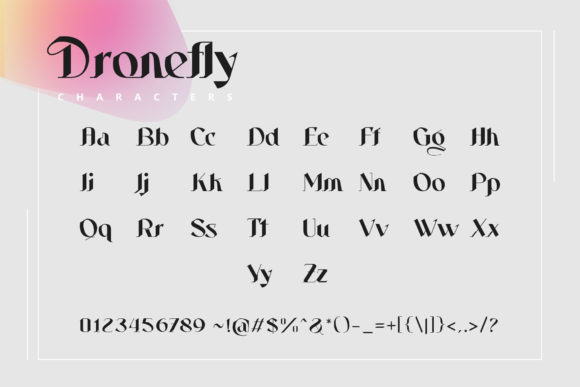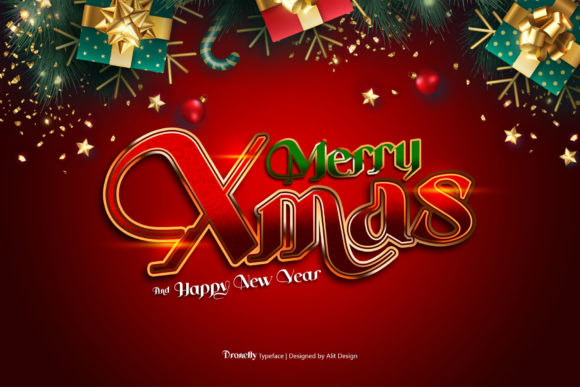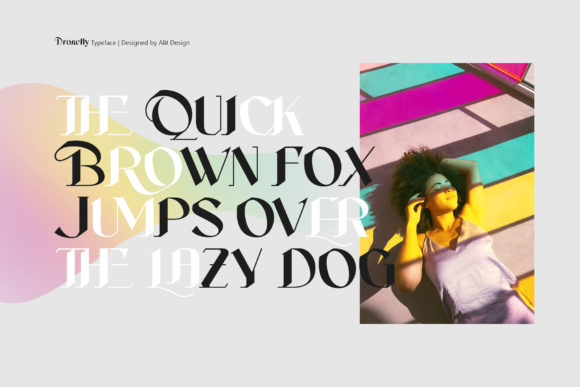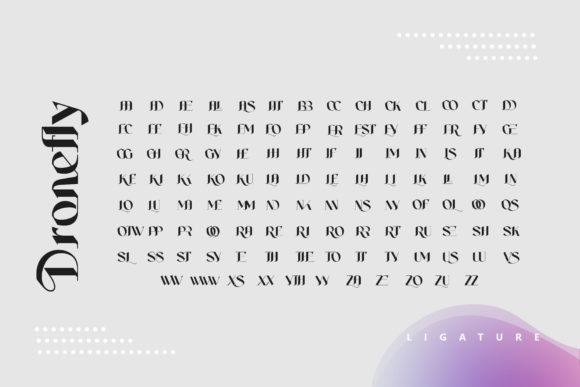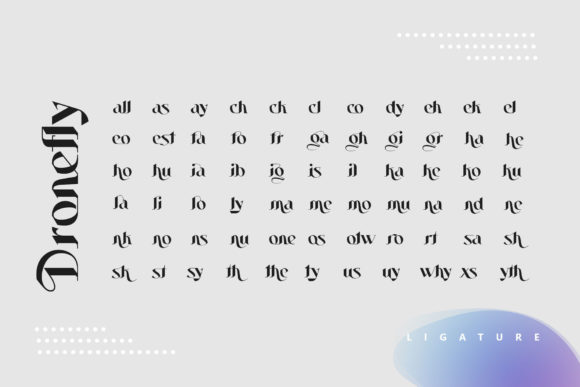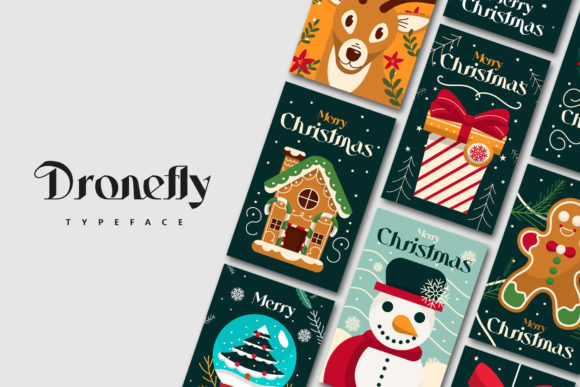
The Designer’s Delight: Unleashing the Power of Dronefly Font
I’ll never forget the time I was working on a project for a client who wanted a vintage-inspired logo with a bold, eye-catching font. I scoured the internet for hours, trying to find the perfect match, but nothing seemed quite right. That was until I stumbled upon Dronefly Font. This stunning, Victorian-styled display font caught my attention and exceeded my expectations in every way. In this article, I’ll share my experience with Dronefly Font, its features, and how to make the most of it in your designs.
A Personal Review: What I Love and What to Watch Out For
- ✅ Unique, assertive style that’s perfect for making a statement
- ✅ Versatile and adaptable to various design projects, from logos to posters
- ✅ Beautifully crafted with intricate details and elegant lines
- ⚠️ May not be suitable for body text due to its bold, display nature
The Story Behind Dronefly Font: Designer Inspiration
Dronefly Font was crafted with love and attention to detail by a talented designer who drew inspiration from the ornate, elegant styles of the Victorian era. With a passion for typography and a keen eye for detail, the designer aimed to create a font that would evoke the grandeur and sophistication of a bygone age while still feeling fresh and modern.
| Author | Alit Design |
Q: Is Dronefly Font suitable for body text?
A: While Dronefly Font is stunning, it’s primarily designed as a display font. It may not be the best choice for body text due to its bold nature and intricate details.
Q: How do I access the glyphs and swashes in Dronefly Font?